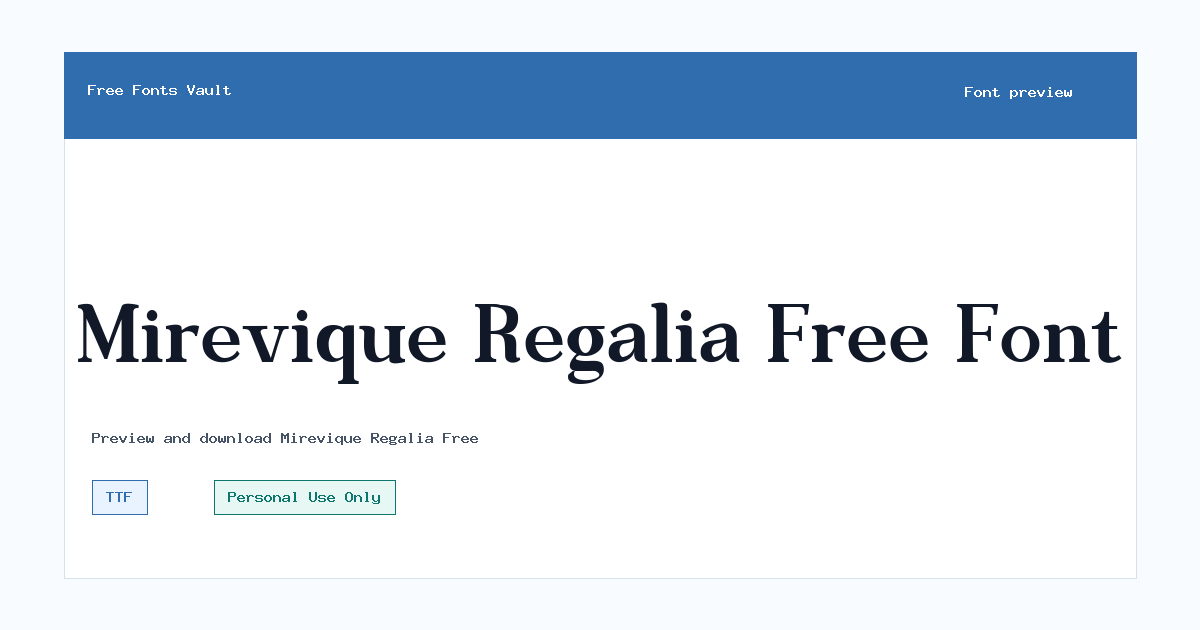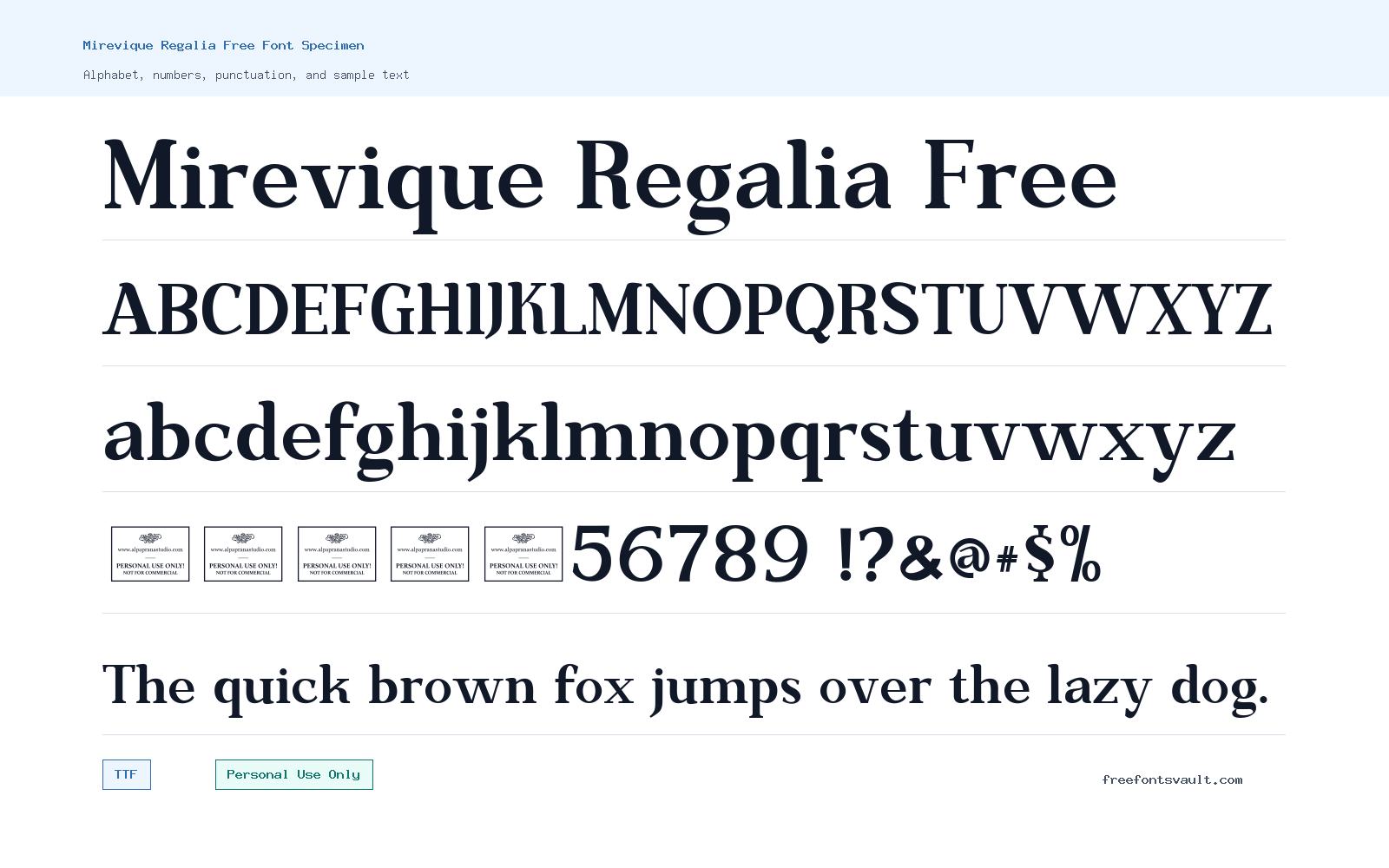
Mirevique Regalia Free
Mirevique Regalia Free font.
Mirevique Regalia Free is a personal-use serif font from Alpaprana Studio, offered in regular weight with both OTF and TTF files. It is a good choice to test when you need a refined display serif for titles, branding drafts, posters, invitations, or stylish web mockups.
About Mirevique Regalia Free
Mirevique Regalia Free works best as a display font rather than a long-reading text face. The name and overall presentation point toward a decorative serif style with a formal, polished mood, so it is most useful where the font can be shown at a larger size. Try it for headings, short brand names, logo concepts, packaging mockups, editorial titles, social graphics, and poster text. Keep the wording short and give the letters enough space to breathe, especially if you are using it for a logo-style lockup or a centered title.
For logo work, Mirevique Regalia Free can be explored for boutique, editorial, fashion, beauty, event, or luxury-style concepts, but it should still be tested carefully. A font that looks strong in a single word may feel crowded in a longer name, and thin details can disappear when the mark is reduced. Check the design in black and white, reverse it on a dark background, and view it at social-avatar size before committing. If you plan to use the result for a real business identity, the license limit matters more than the visual fit.
Pairing this kind of serif is easiest when the supporting font stays quiet. Use a clean sans serif for body copy, captions, menus, and longer descriptions so Mirevique Regalia Free can carry the visual personality without making the layout feel heavy. If the headline is ornate or high-contrast, avoid pairing it with another decorative typeface. For posters and web headers, a simple geometric or humanist sans serif can help keep the page readable while still letting the title feel elegant.
- Personal-use serif font suited to display typography
- Useful for testing short headlines, logo drafts, posters, and stylish layout mockups
- Best used at larger sizes where serif details can remain clear
- Logo concepts and brand-name mockups
- Editorial-style headlines
- Fashion, beauty, boutique, or invitation layouts
- Website hero headings and social media title cards
Use Mirevique Regalia Free for short, high-impact text rather than dense paragraphs. Test your exact wording in the preview, check spacing in all caps and title case, and confirm that numbers, punctuation, and special characters meet your project needs. Pair it with a simple sans serif for readable supporting text.
What is Mirevique Regalia Free best used for?
It is best suited to display typography such as logo drafts, headings, posters, invitations, packaging mockups, and stylish web hero text.
Should I use this font for body text?
It is better for short display text. For paragraphs, pair it with a clean, readable sans serif or text serif.